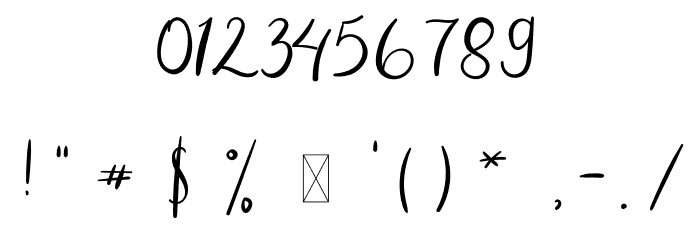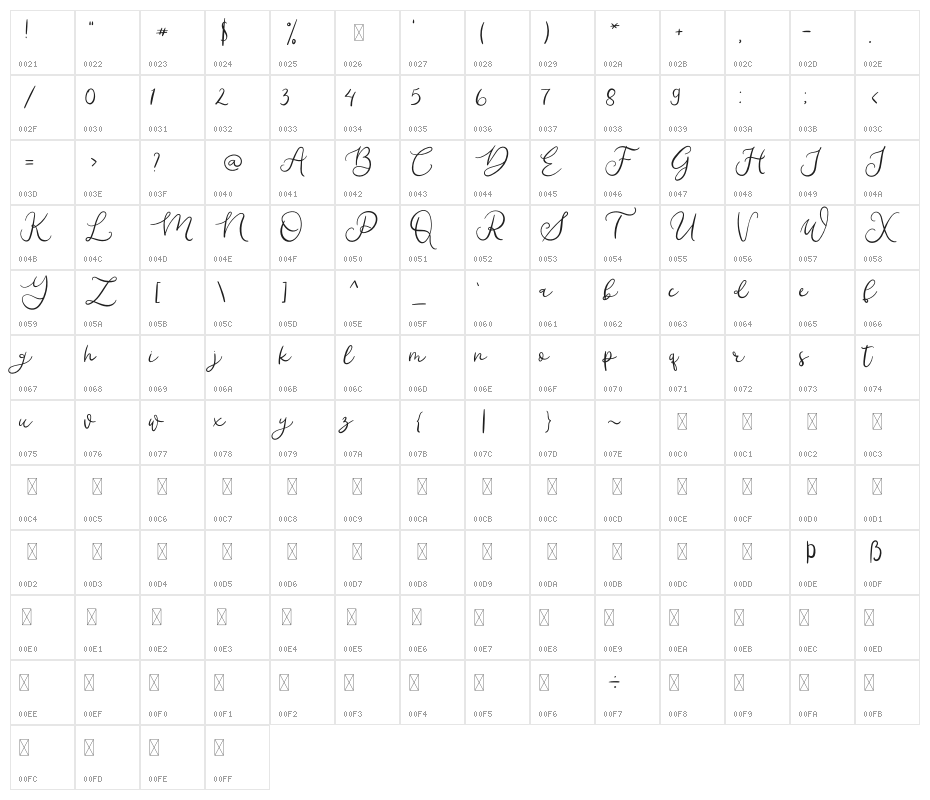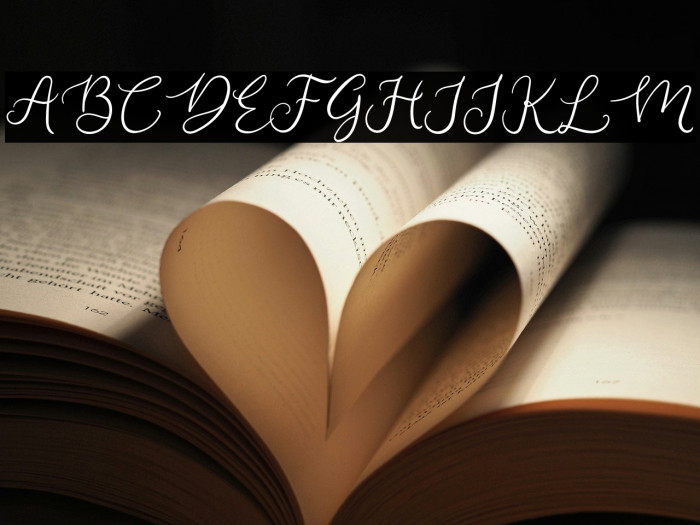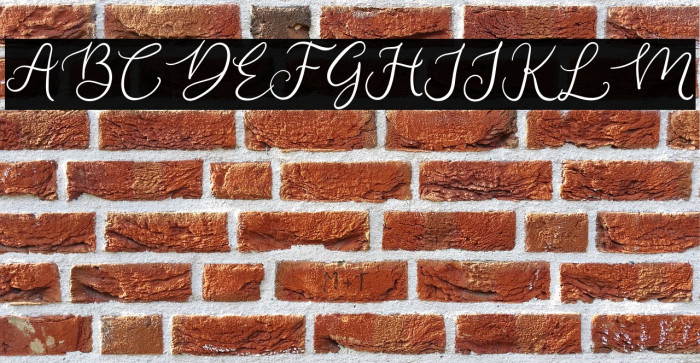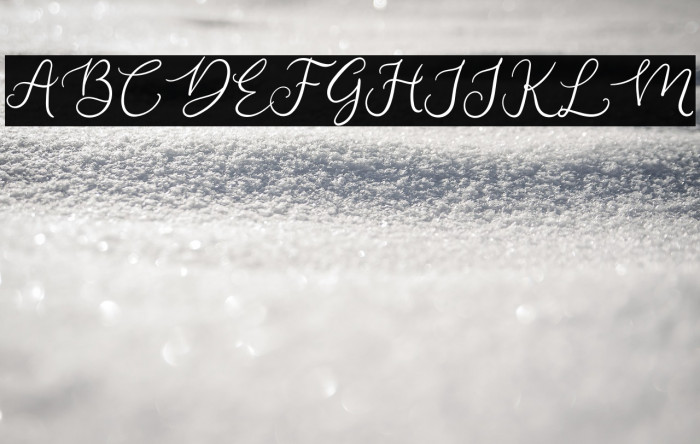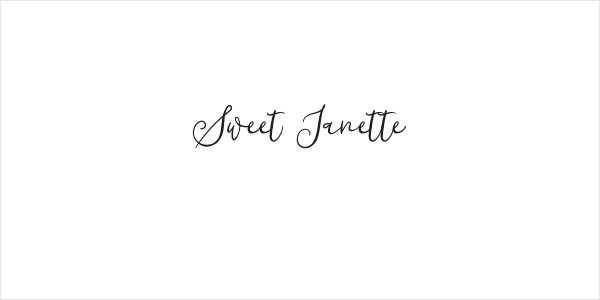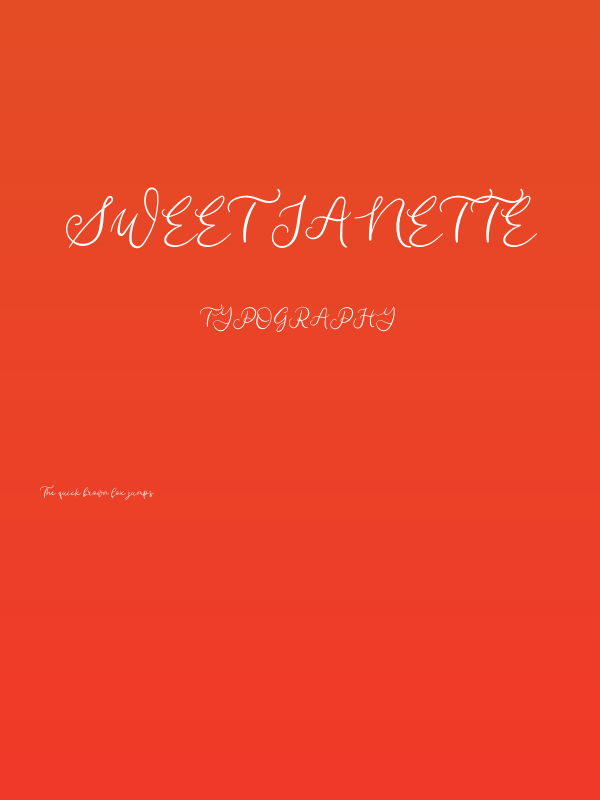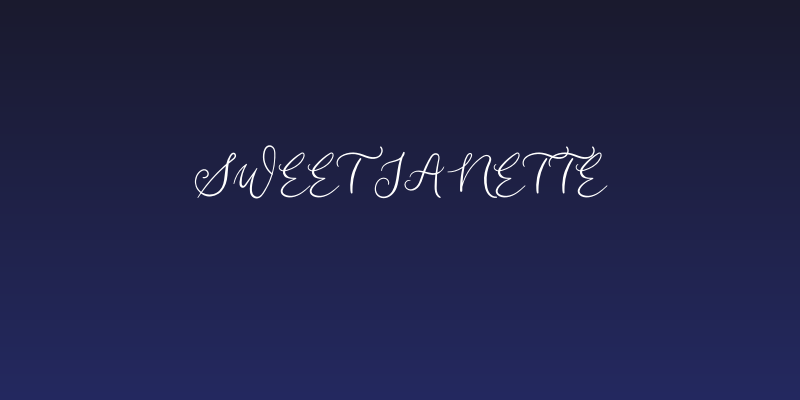
Sweet Janette Font
Sweet Janette Description
This font features an elegant and flowing script style, characterized by its smooth, cursive letterforms that mimic natural handwriting. The uppercase letters are slightly more elaborate with graceful loops and swashes, while the lowercase letters maintain a consistent, fluid motion. The numerals and special characters complement the alphabet with similar curves and a cohesive aesthetic. This font exudes a sense of sophistication and charm, making it ideal for projects that require a personal touch or a sense of elegance.